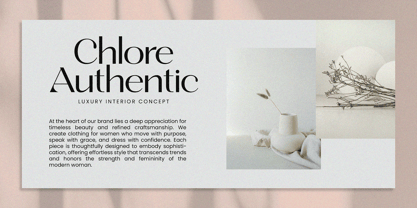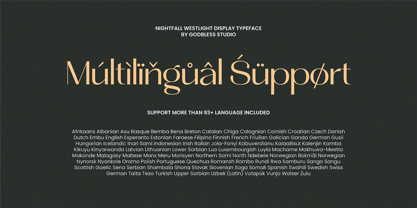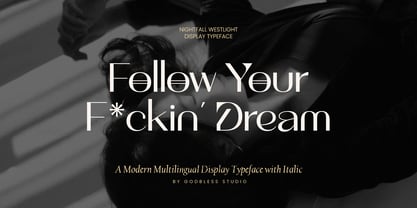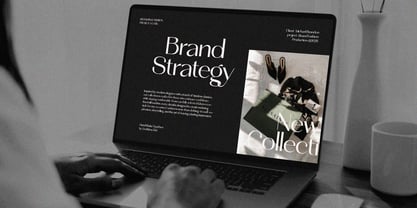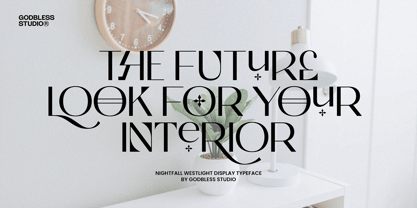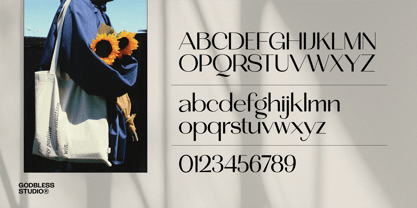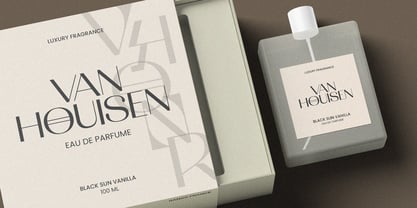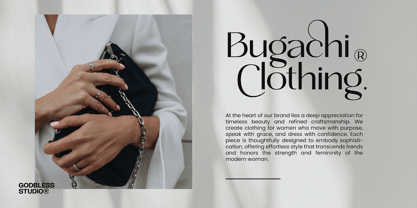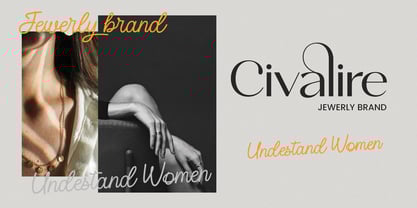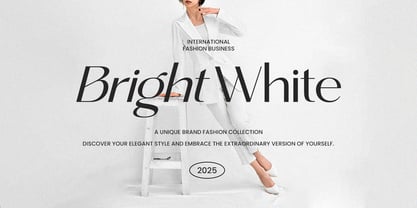
Nightfall Westlight
by Godbless Studio
The Nightfall Westlight Font Family was designed by Heri Juniawan and published by Godbless Studio. Nightfall Westlight contains 2 styles and family package options. More about this family
Nightfall Westlight – Sans Display Typeface with Italic
Introducing Nightfall Westlight, a modern sans display typeface designed to capture both boldness and elegance. With its clean lines, refined details, and italic style option, this font is built to elevate your design projects with a contemporary and professional edge. Crafted for standout headlines, branding, and eye-catching visuals, Nightfall Westlight is the perfect blend of clarity and character.
Versatile and stylish, Nightfall Westlight is ideal for a wide range of uses—from logos, posters, packaging, and apparel designs, to social media graphics, editorial layouts, and digital projects. The font comes in Regular and Italic, giving you flexibility to adapt your designs for different moods and contexts. What makes it even more powerful is its set of alternates, allowing you to experiment with multiple styles and add unique flair to your typography. Plus, with multilingual support covering more than 90 languages, it ensures global reach and seamless use across international projects.
Owning Nightfall Westlight means having a dependable and versatile font on your desktop—ready to bring sophistication and impact to every creative project. Whether you’re a designer building a brand identity, a creative shaping bold advertising campaigns, or simply looking to add elegance to your visuals, this typeface is designed to help your work stand out.
Designers: Heri Juniawan
Foundry: Godbless Studio